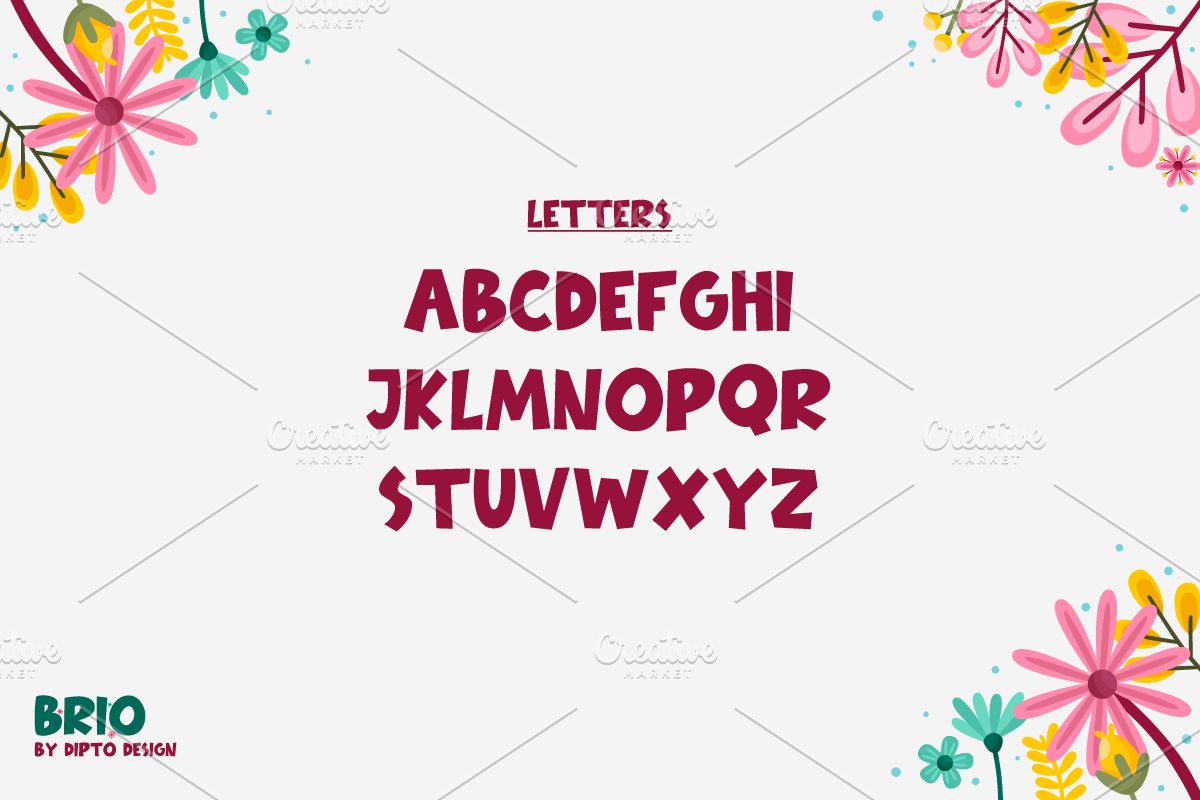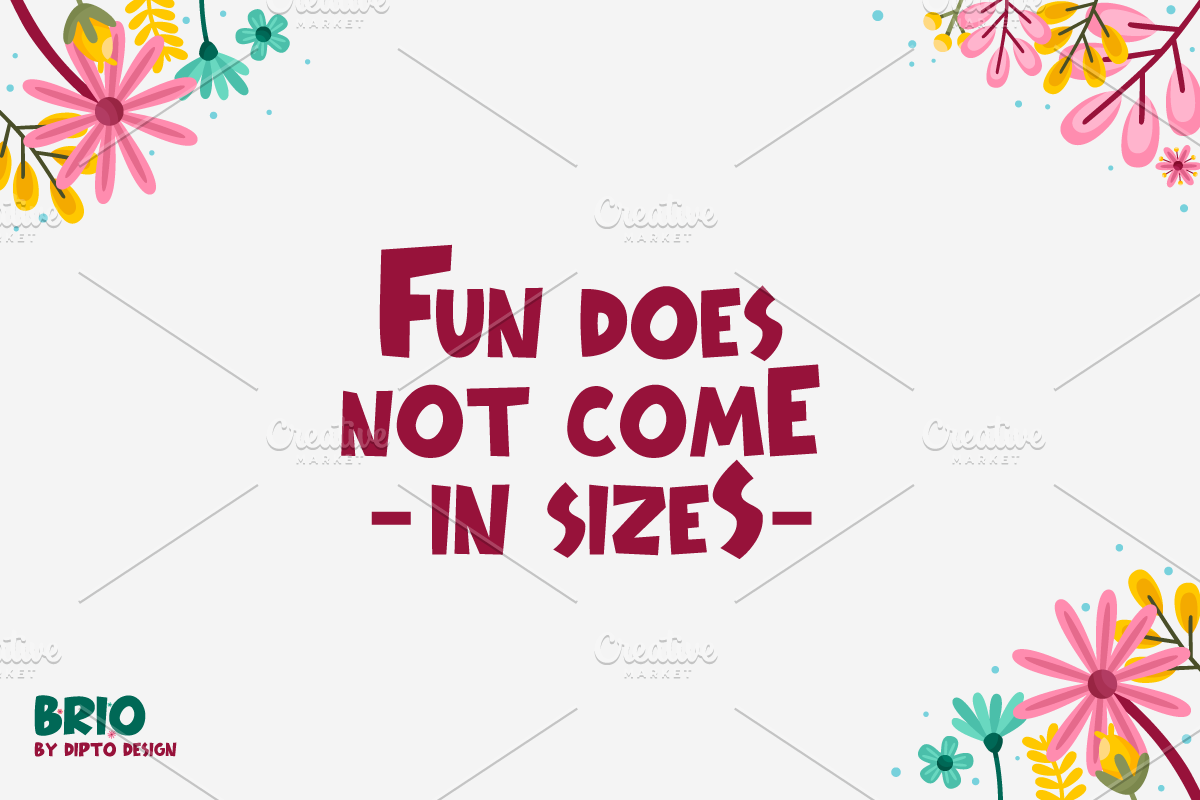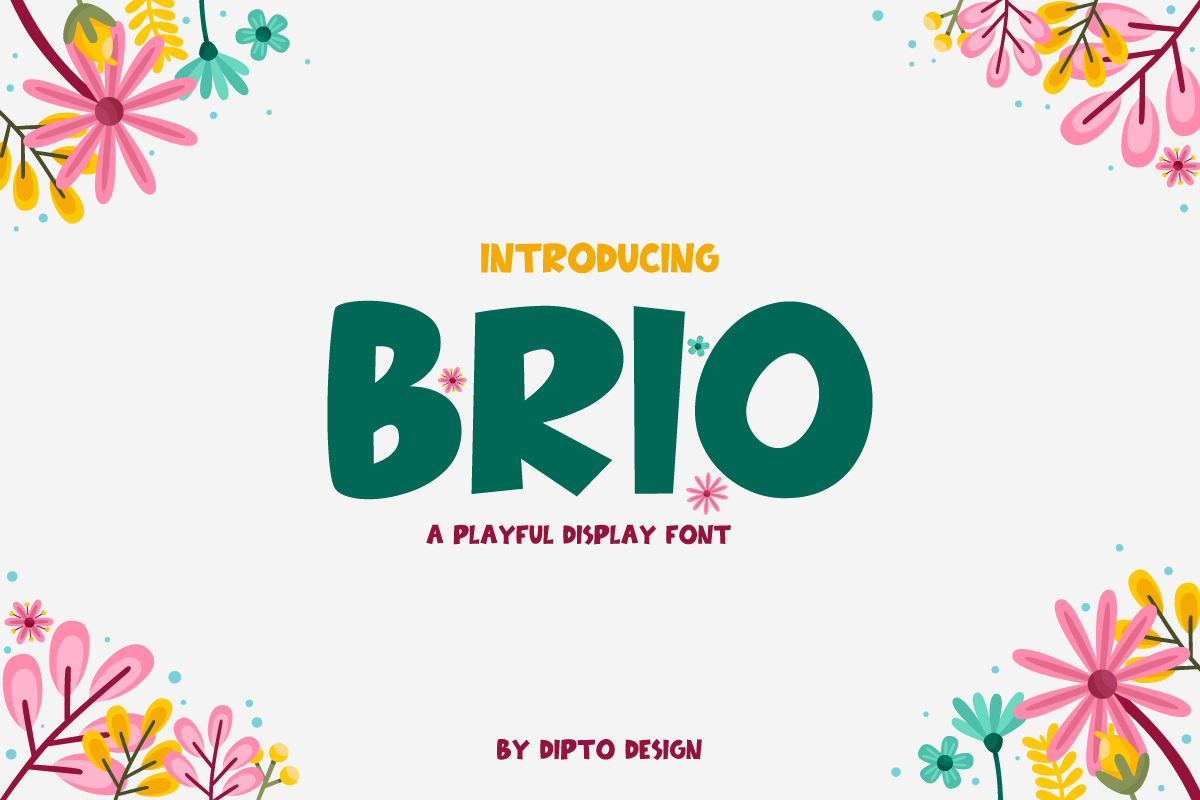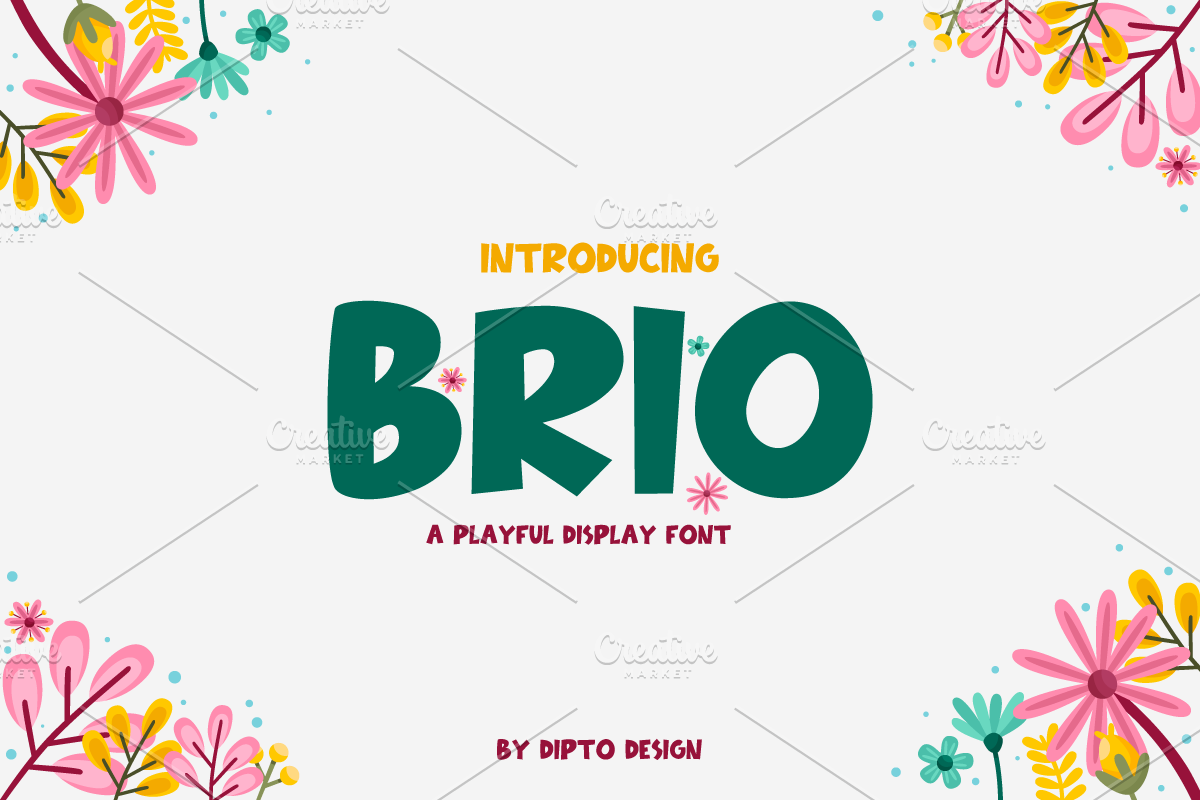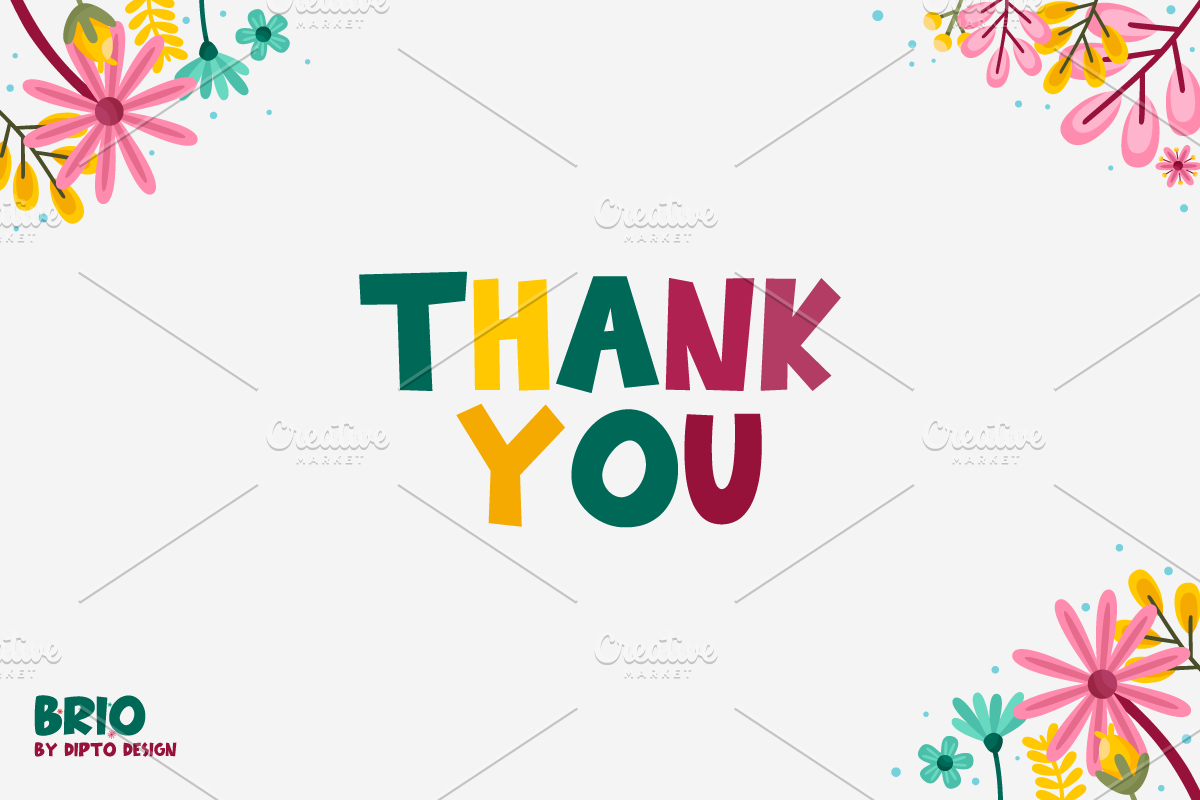
Brio-Playful Typeface
Meet Brio — the font that sparks joy in design! This playful wonder is perfect for logos, headlines, and any project that craves a burst of creativity. With Brio, professionalism meets playfulness, creating a dynamic blend that stands out. Download now for designs that pop with the spirited charm of Brio.
Can be used for the design of poster, Big sale sign, greeting card , packaging designs, New Year design and so on with the winter season concept.
- Stylish and Playful